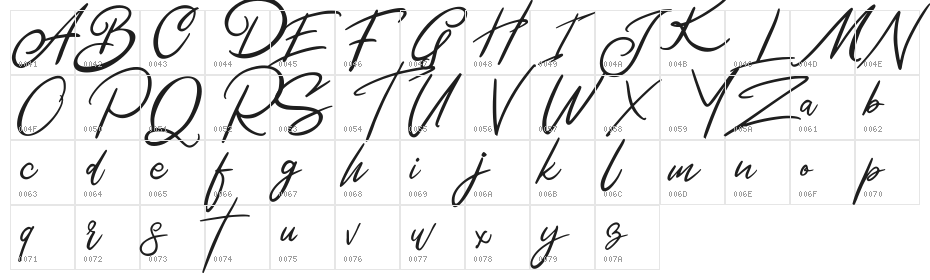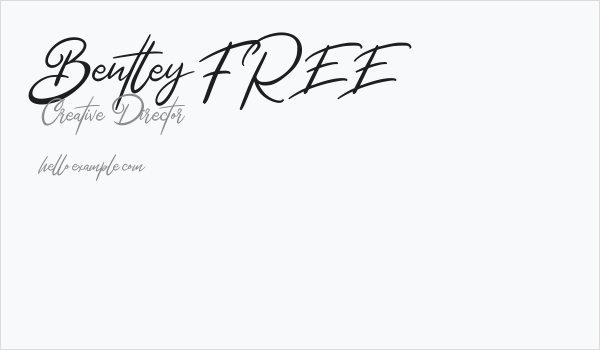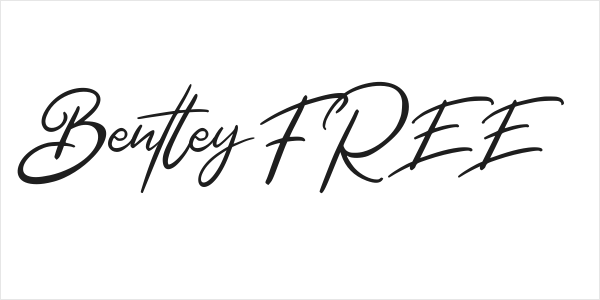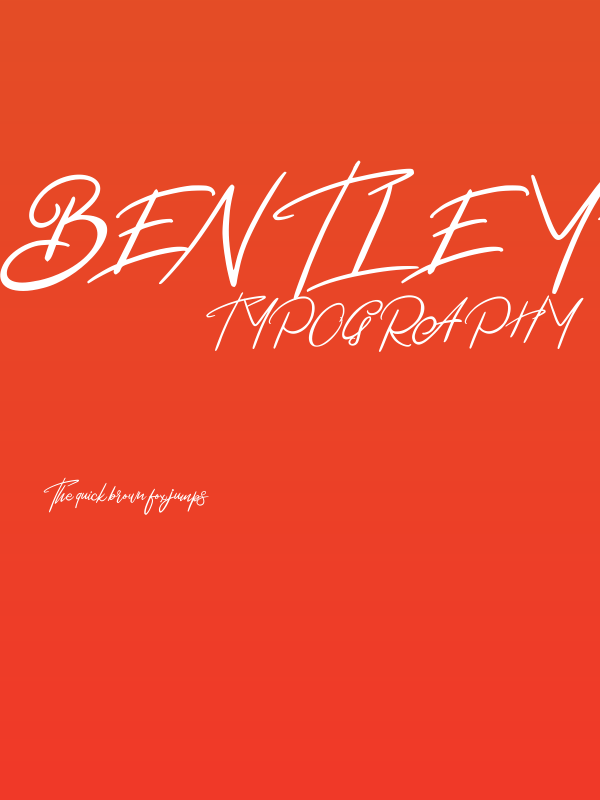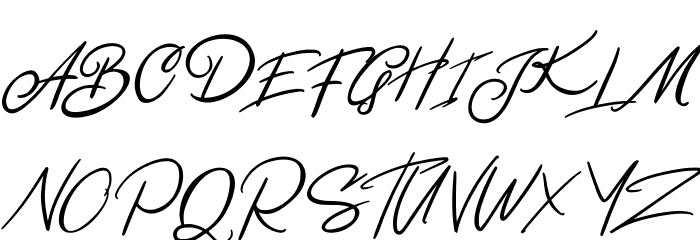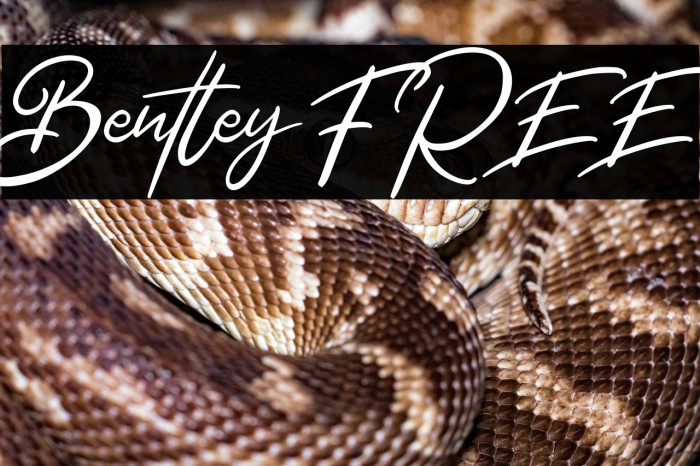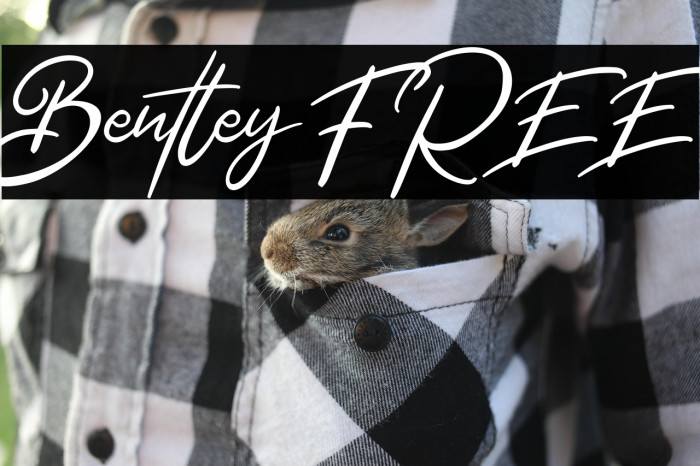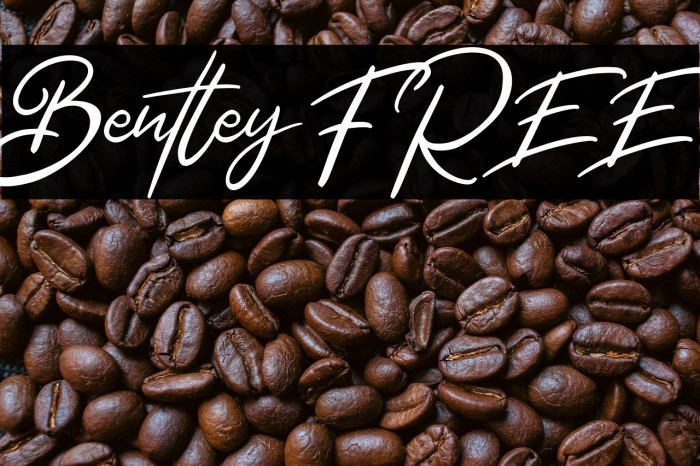
Bentley FREE Font
Bentley FREE Description
This font features a dynamic and elegant script style, characterized by fluid, cursive strokes that mimic natural handwriting. The uppercase letters are ornate and flowing, with a consistent slant that adds a sense of motion and grace. The lowercase letters maintain a cohesive connection, enhancing the script's legibility while preserving its artistic flair. The numerals and special characters are designed to complement the overall aesthetic, ensuring a harmonious appearance across all text. This font's sophisticated style makes it suitable for projects that require a touch of elegance and personal expression.
| Proposed Projects | Ideal for wedding invitations, greeting cards, personal branding, and elegant packaging designs. |